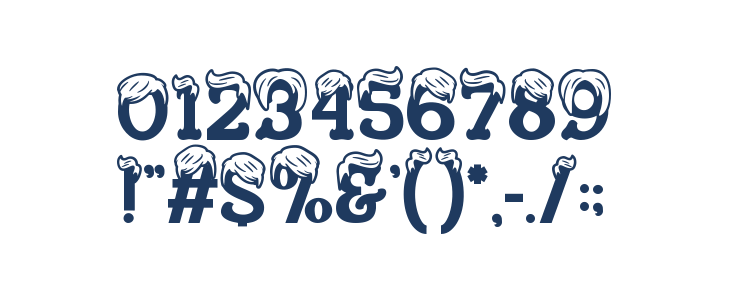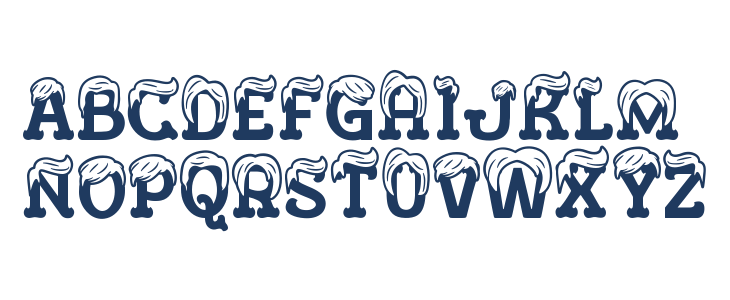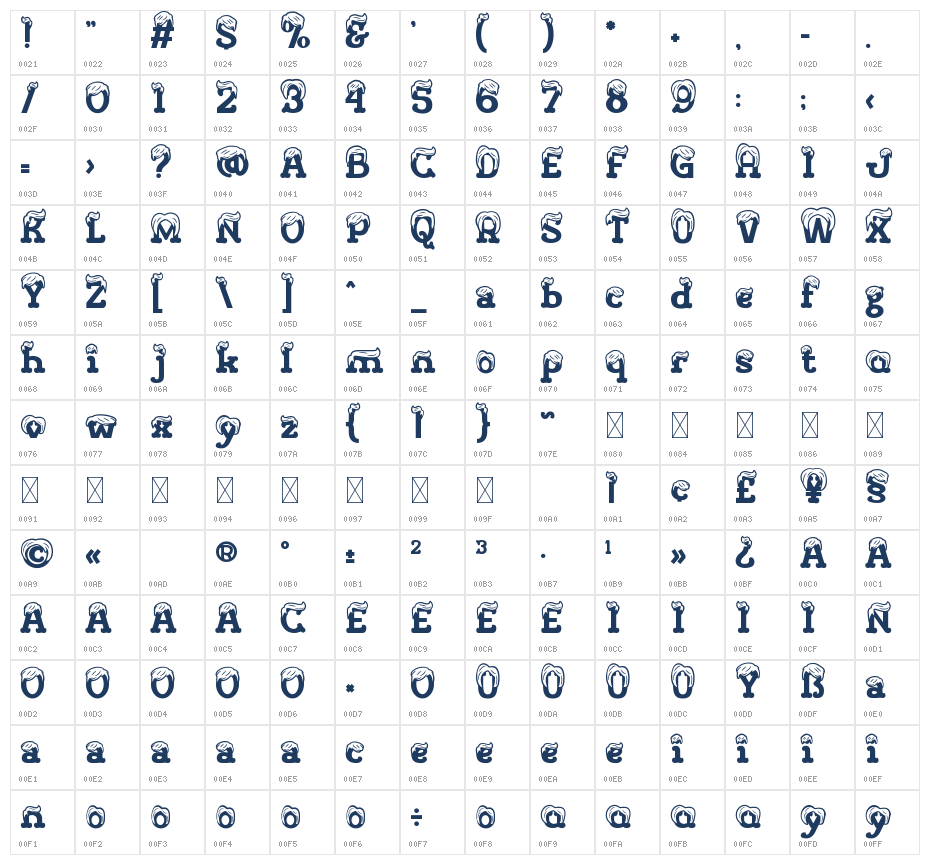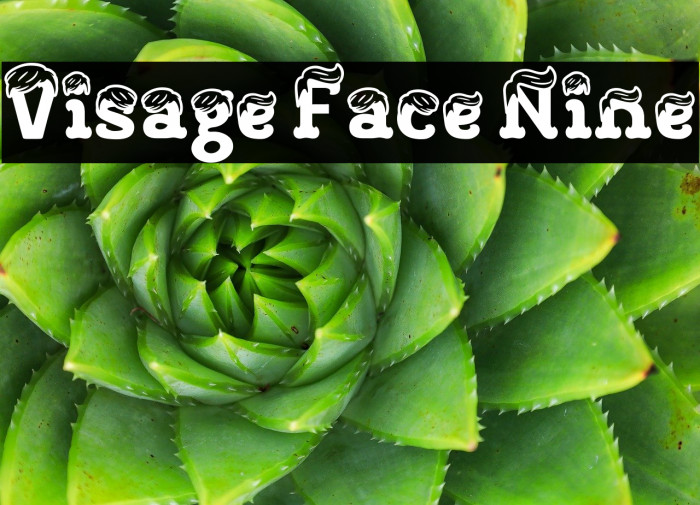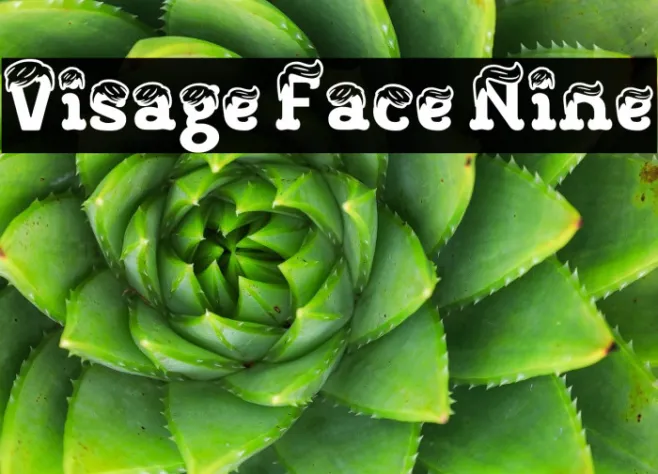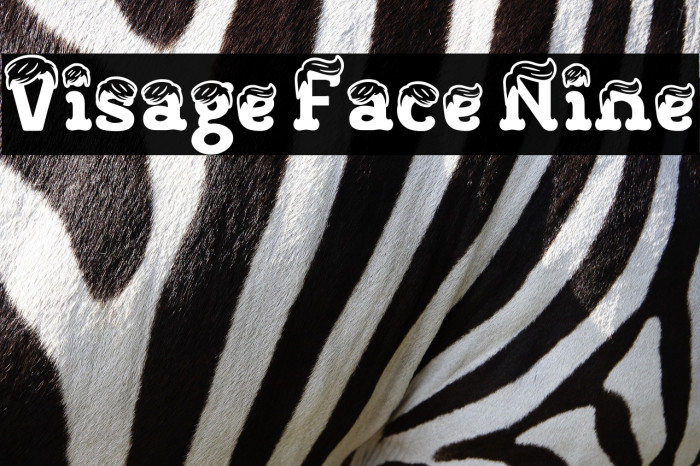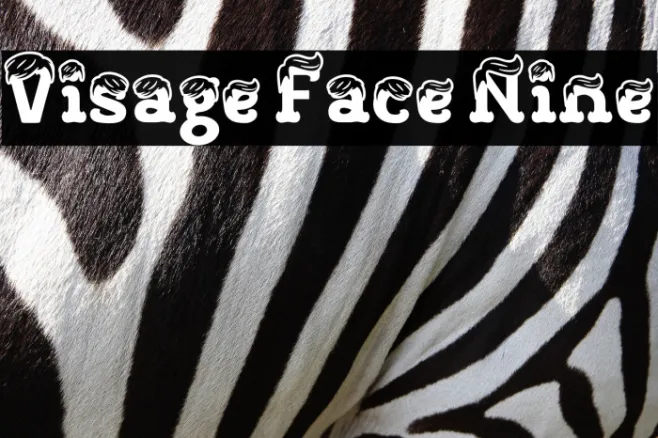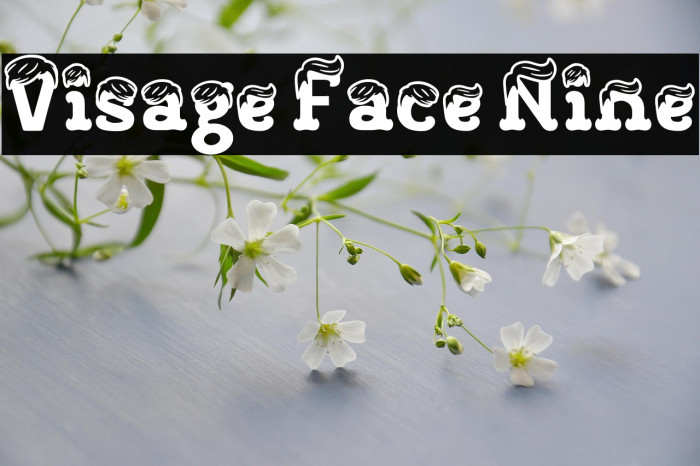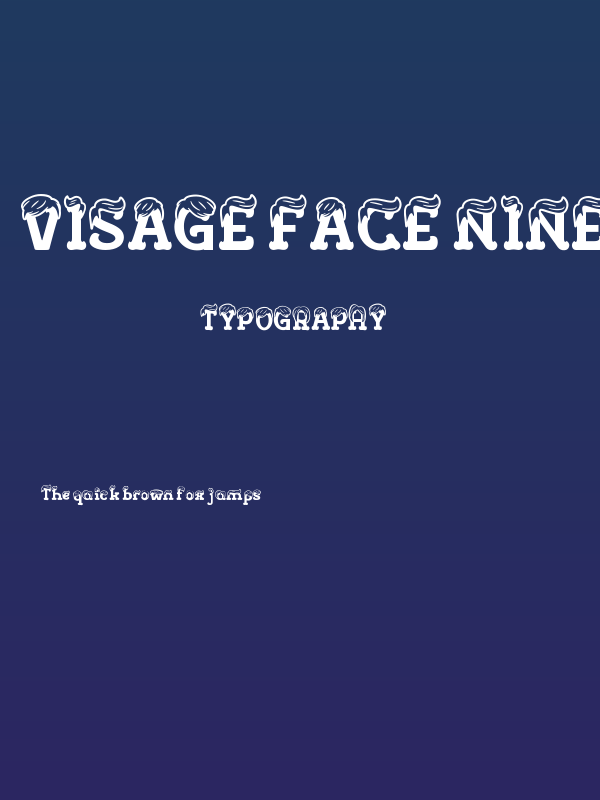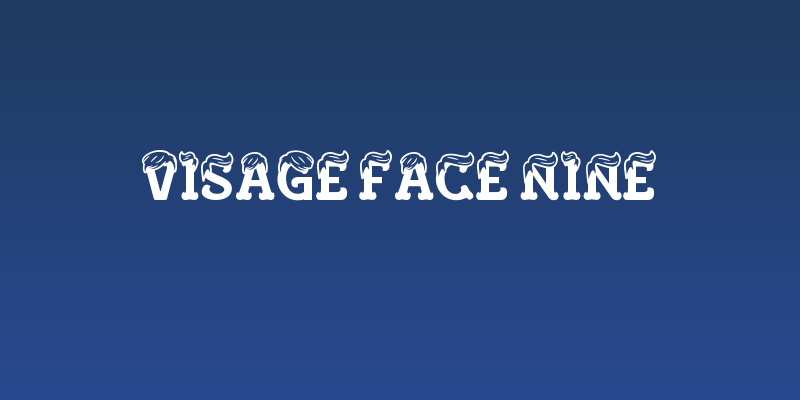
Visage Face Nine Font
Visage Face Nine Description
A playful, decorative font with a bold, outlined style and a whimsical, cartoonish appearance, featuring a hat-like element on each character.
| Overall Style | Whimsical, Playful, Cartoonish |
| Use Case | Headlines, Titles, Logos, Posters |